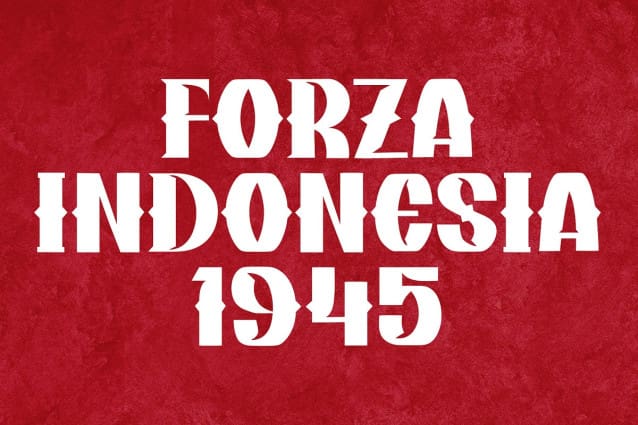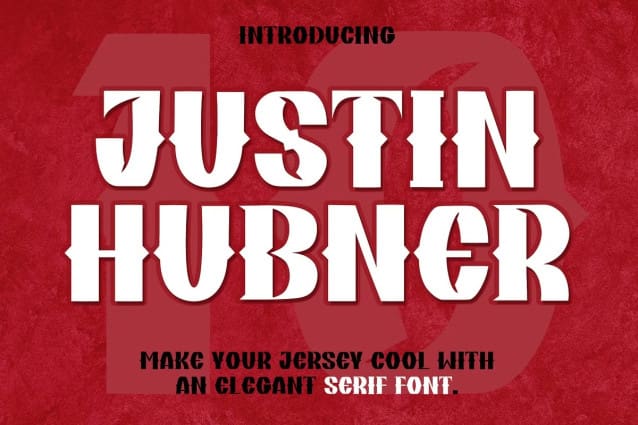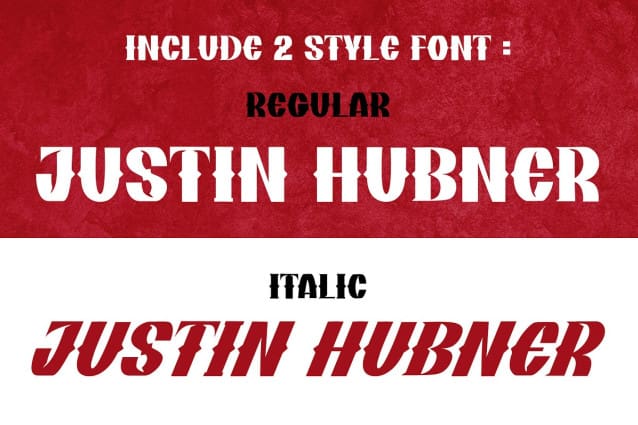
Justin Hubner Font
Justin Hubner Font, an exquisite serif font designed to infuse your jersey with an effortlessly cool and elegant vibe. Beyond sportswear, Justin Hubner seamlessly serves all your design essentials. It’s the perfect font to uplift logos, reinforce branding, and add sophistication to any design project. With JustinHubner, elegance is not just an addition; it’s at the heart of every letter and curve.